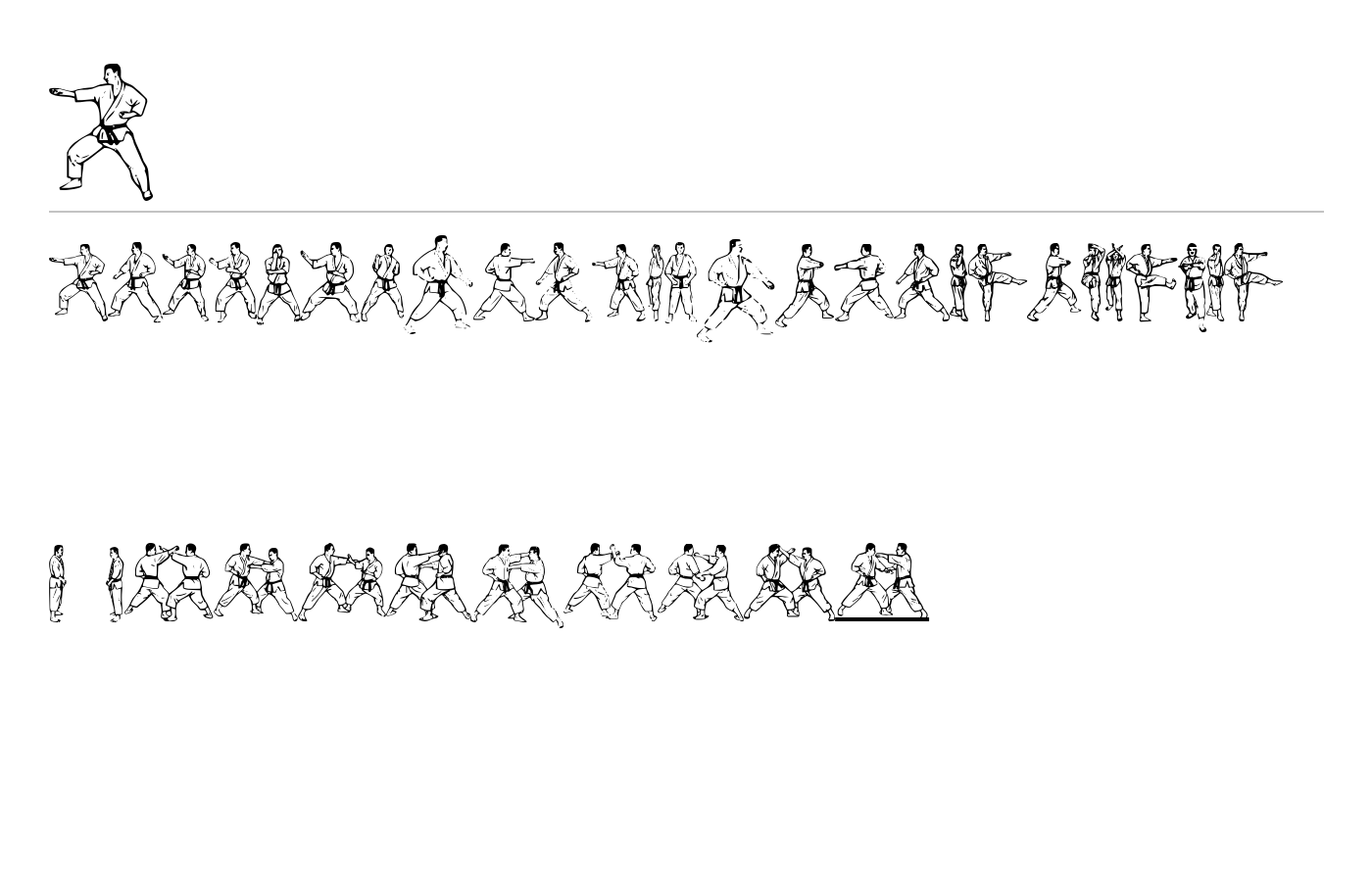
Atewaza Font is a unique pictorial typeface featuring detailed line-art illustrations of martial artists in various karate poses. This font brings an energetic and dynamic feel, making it perfect for sports, fitness, or martial arts branding, promotional materials, and creative projects that want to convey action and discipline visually without using traditional letterforms. Its illustrative style works best in headlines, logos, or thematic design where strong visual impact is needed.
Atewaza Font
About Atewaza Font
| Font family | Atewaza Font |